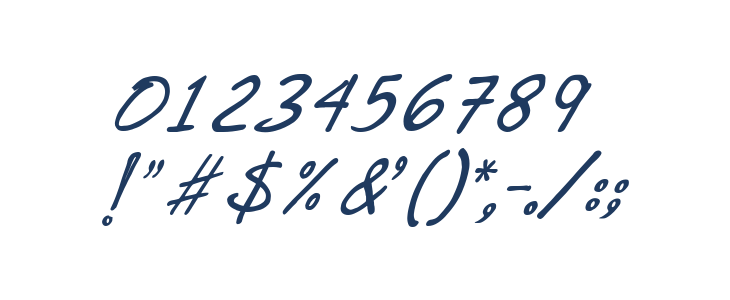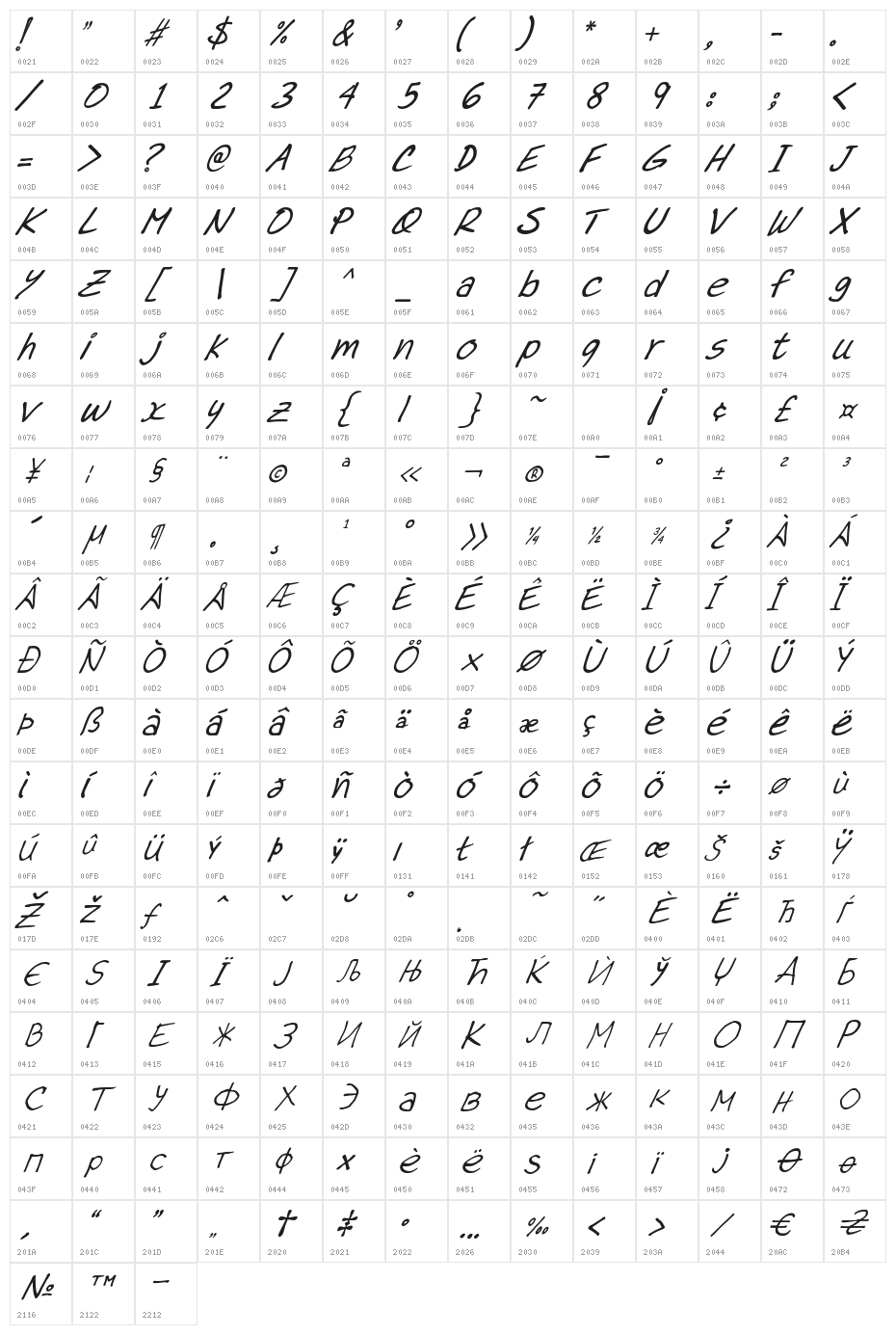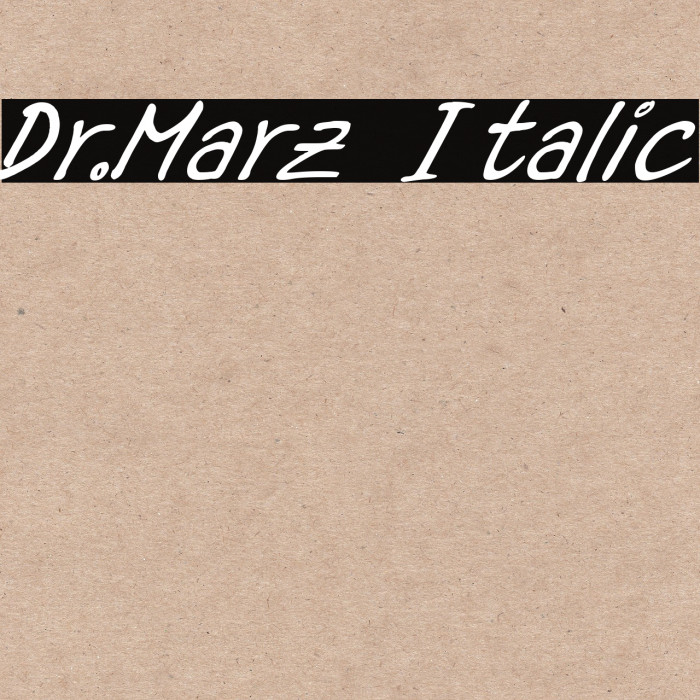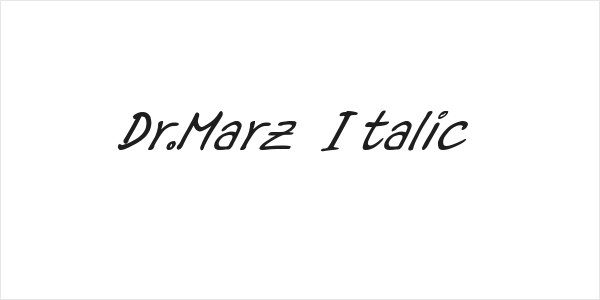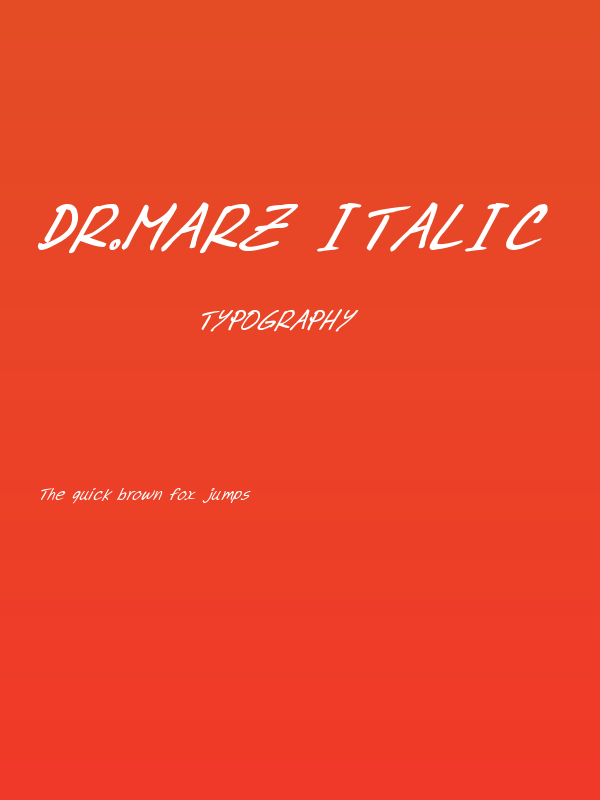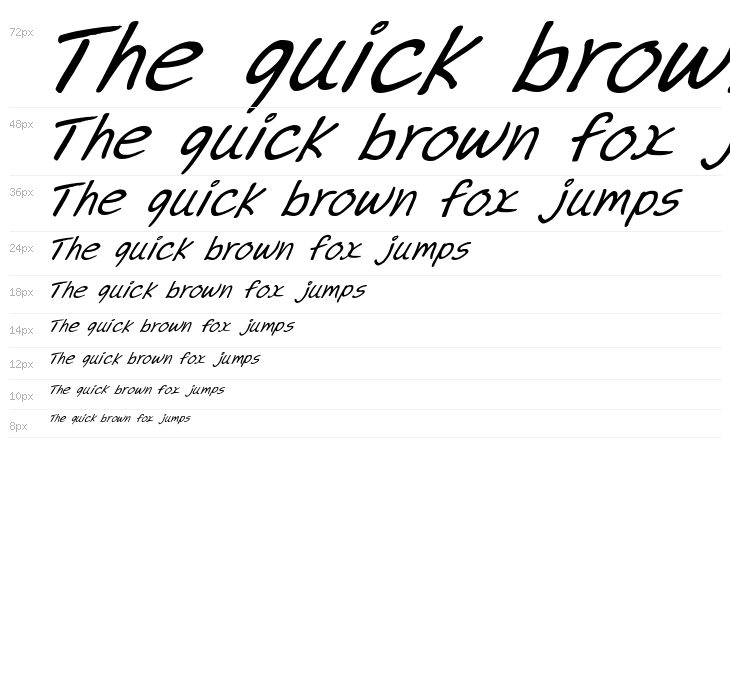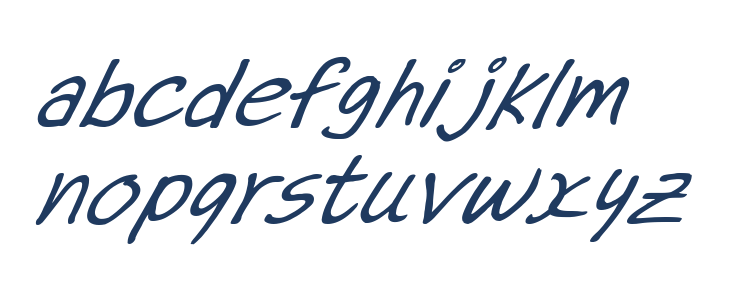
Dr.Marz Italic Font
Dr.Marz Italic Description
This font exhibits a dynamic and fluid style, characterized by its italicized, handwritten appearance. The letters are slightly slanted, giving a sense of motion and elegance. The strokes are smooth and connected, with a consistent flow that mimics natural handwriting. The uppercase letters maintain a uniform height, while the lowercase letters have a slight variation in size, adding to the organic feel. The numerals and special characters are designed to match the overall aesthetic, ensuring cohesion across all elements. This font is ideal for projects that require a personal touch or a creative flair.
| Proposed Projects | Perfect for invitations, greeting cards, personal branding, and creative projects requiring a personal touch. |